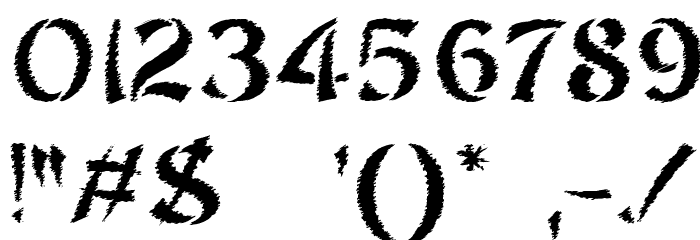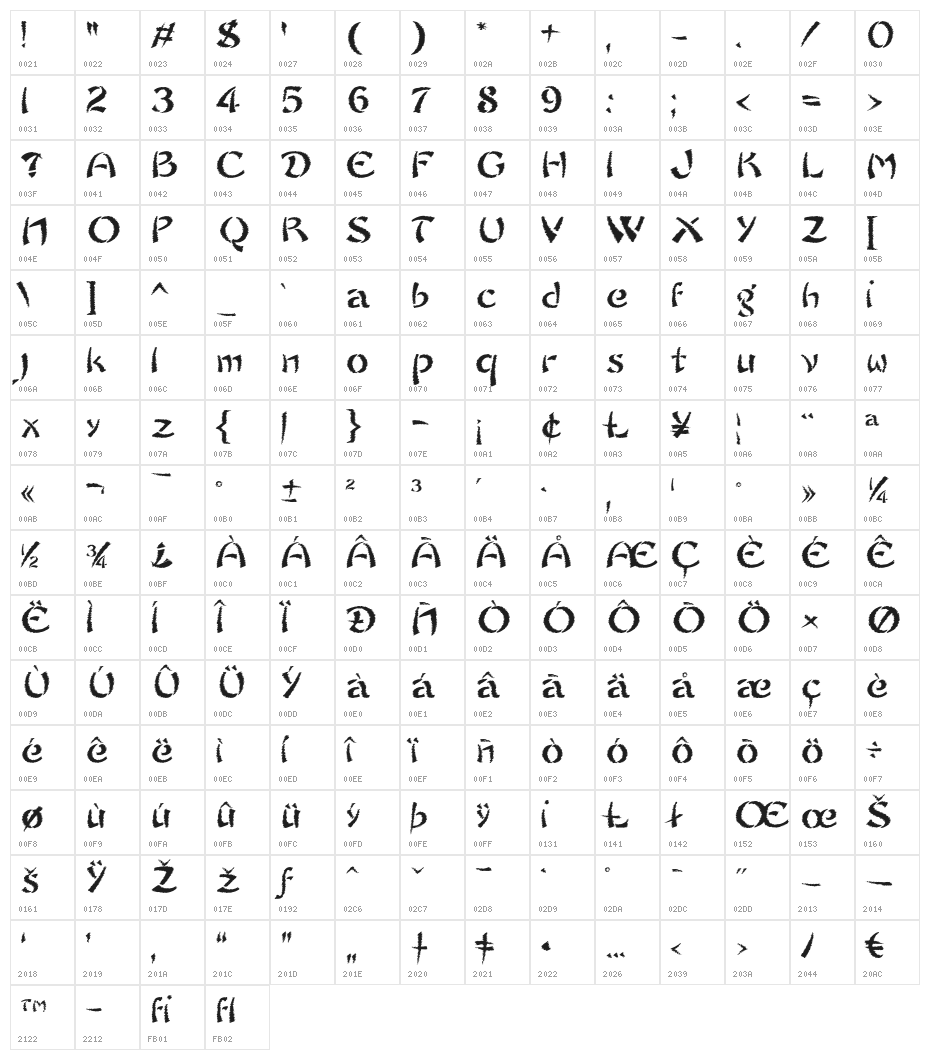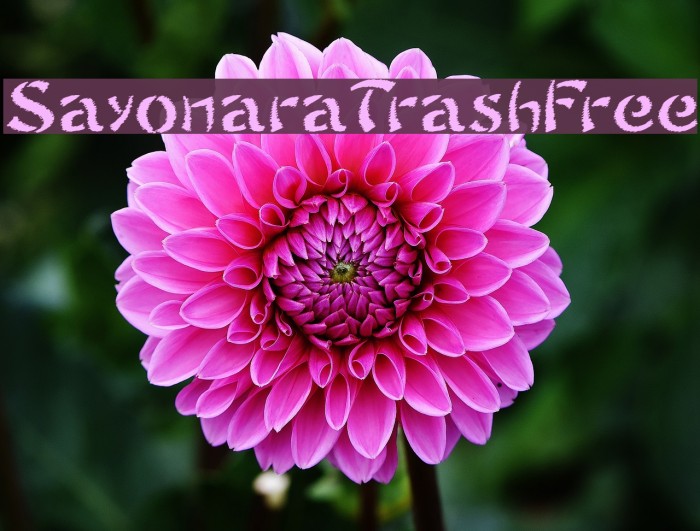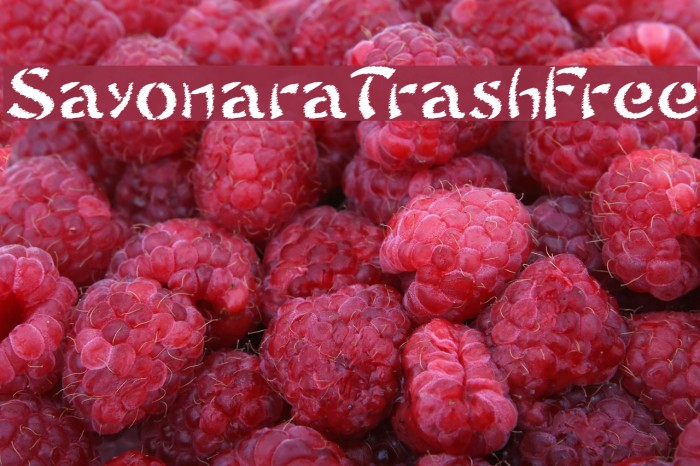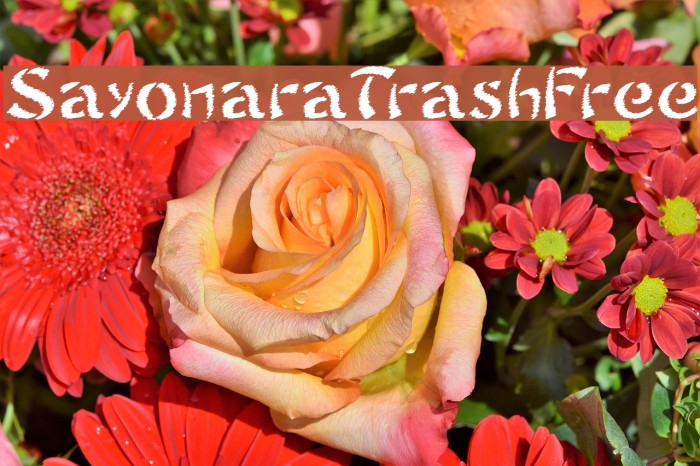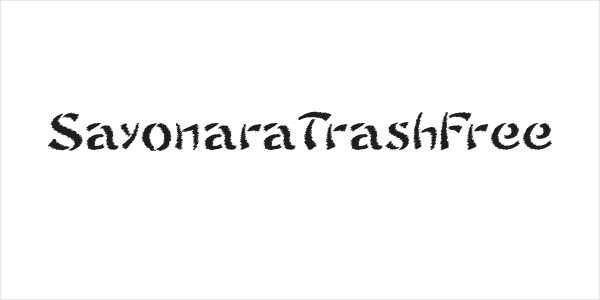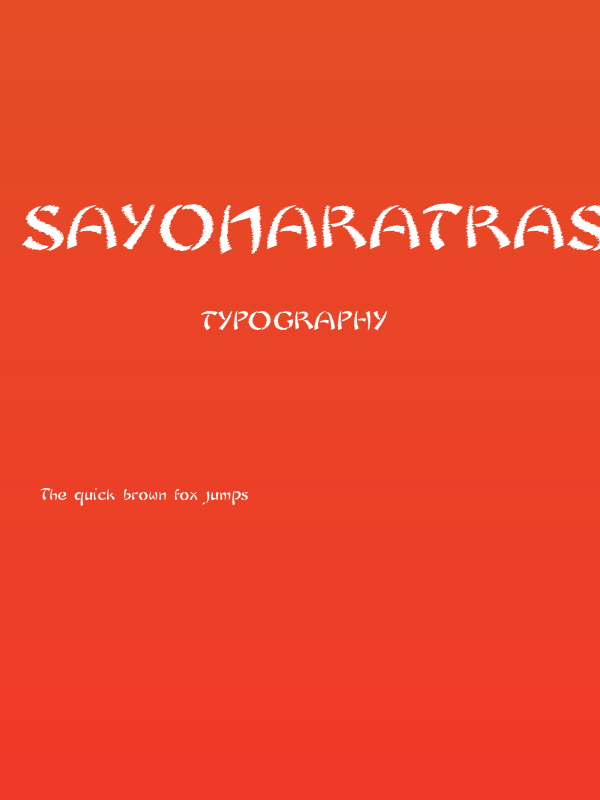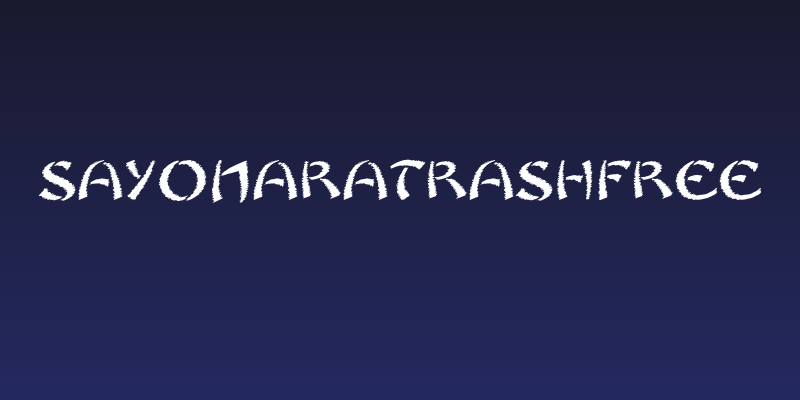
SayonaraTrashFree Font
SayonaraTrashFree Description
This font features a bold, textured style that resembles brush strokes, giving it a dynamic and artistic appearance. The characters are slightly slanted, adding a sense of movement and energy. The uppercase and lowercase letters maintain a consistent style, with sharp angles and a rough, hand-drawn quality. The numbers and special characters follow the same design, ensuring uniformity across all elements. This font's unique texture and boldness make it stand out, ideal for projects that require a strong visual impact.